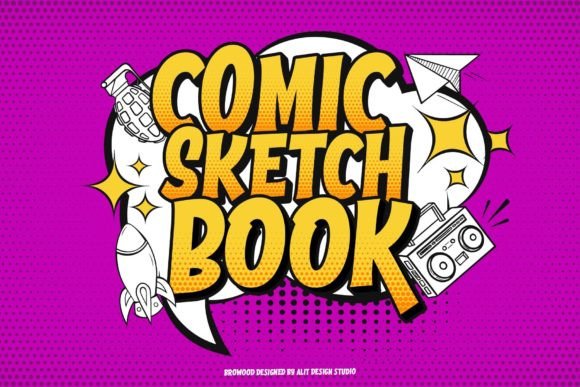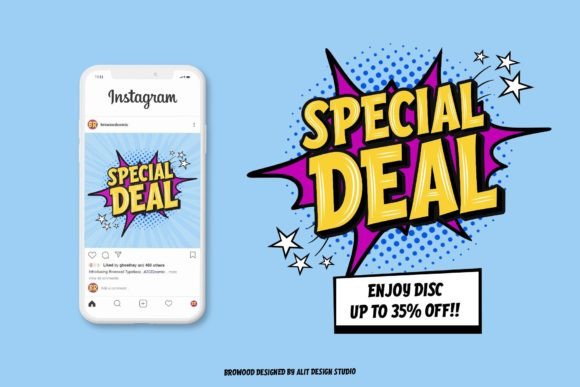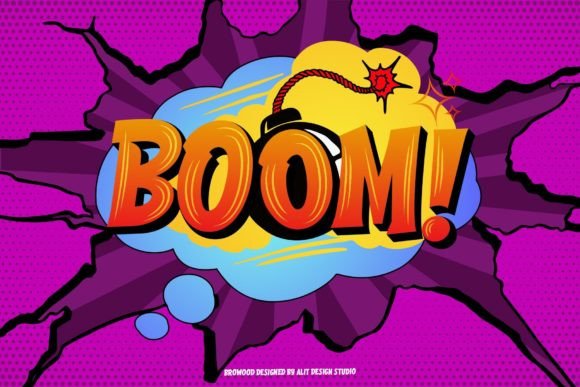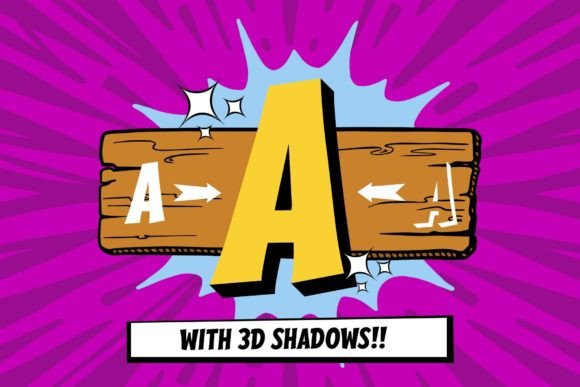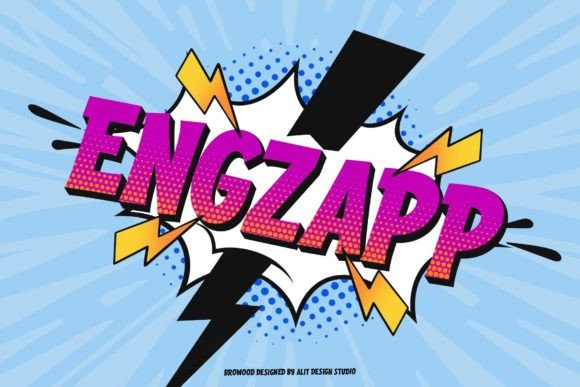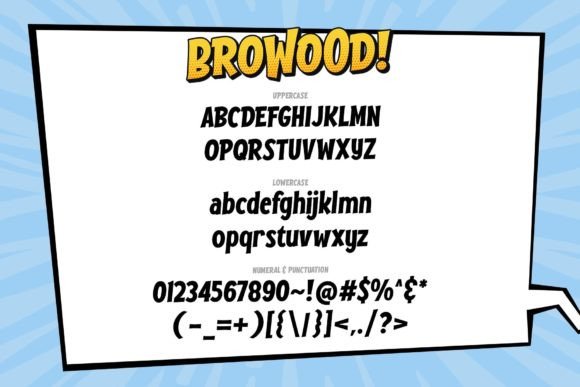
Browood Font: Unleash Your Creativity with this Playful and Bold Comic Display Font
Are you tired of using the same old fonts in your design projects? Do you want to add a touch of uniqueness and playfulness to your creations? Look no further than the Browood Font! This fun, playful, and bold comic display font is sure to turn any design project into a true standout. In this article, we’ll explore the features and benefits of the Browood Font, and show you how to make the most of its unique charm.
What is Browood Font?
Browood Font is a comic display font that boasts a unique style that’s sure to capture attention. Its bold and playful design makes it perfect for a wide range of design projects, from posters and flyers to social media graphics and website headers. Whether you’re a designer, crafter, or DIY enthusiast, Browood Font is a versatile and fun font that’s sure to inspire your creativity.
Key Features of Browood Font
So, what sets Browood Font apart from other fonts? Here are some of its key features:
- Unique Style: Browood Font has a one-of-a-kind design that’s sure to make your designs stand out from the crowd.
- PUA Encoded: This font is PUA (Private Use Area) encoded, which means you can access all the glyphs and swashes with ease.
- Playful and Bold: Browood Font is perfect for designs that require a playful and bold touch.
- Comic Display Font: This font is specifically designed for comic-style designs, making it perfect for creating eye-catching headlines and titles.
Benefits of Using Browood Font
So, why should you choose Browood Font for your design projects? Here are some benefits of using this amazing font:
- Adds Personality to Your Designs: Browood Font’s unique style adds a touch of personality to your designs, making them more engaging and memorable.
- Perfect for Creative Projects: This font is ideal for creative projects that require a playful and bold touch, such as comics, illustrations, and cartoons.
- Eases Design Process: With its PUA encoding, Browood Font makes it easy to access glyphs and swashes, saving you time and effort in the design process.
- Versatile: Browood Font can be used for a wide range of design projects, from digital designs to print materials.
How to Use Browood Font
Using Browood Font is easy! Here are some tips to get you started:
- Pair it with Other Fonts: Combine Browood Font with other fonts to create a unique and eye-catching design.
- Experiment with Colors: Try out different colors and gradients to add depth and interest to your designs.
- Use it for Headlines and Titles: Browood Font is perfect for creating bold and playful headlines and titles.
- Don’t be Afraid to Get Creative: With Browood Font, the possibilities are endless! Don’t be afraid to experiment and try out new and creative ideas.
In conclusion, Browood Font is a fun, playful, and bold comic display font that’s sure to add a touch of uniqueness to your design projects. With its PUA encoding, unique style, and versatility, this font is perfect for designers, crafters, and DIY enthusiasts looking to unleash their creativity. So why wait? Get inspired by Browood Font’s unique charm and turn your design projects into true standouts!